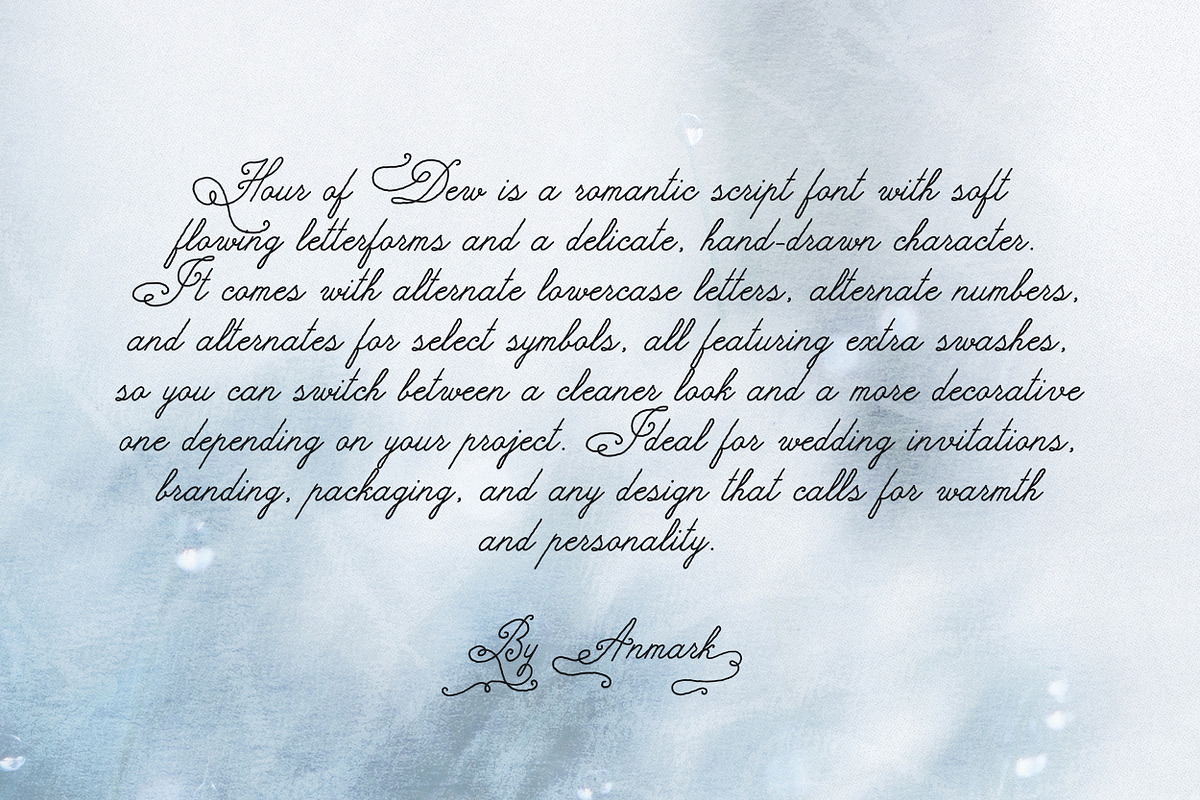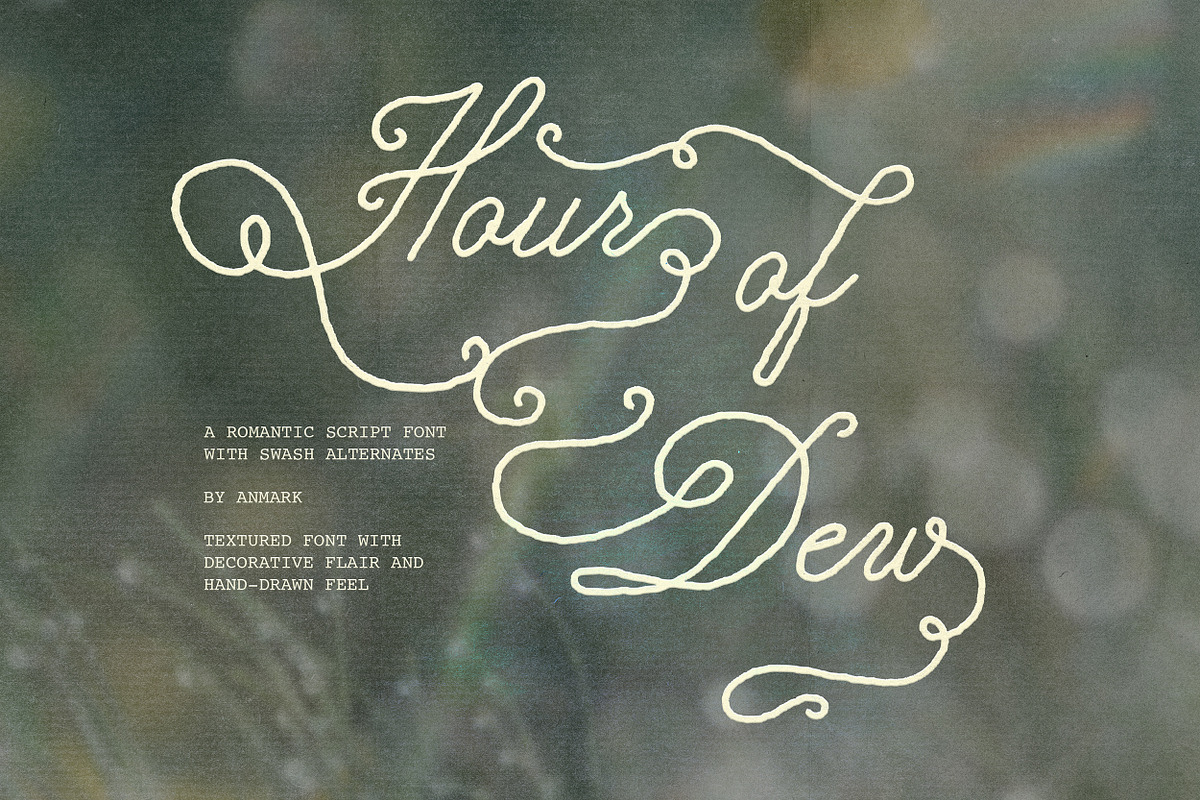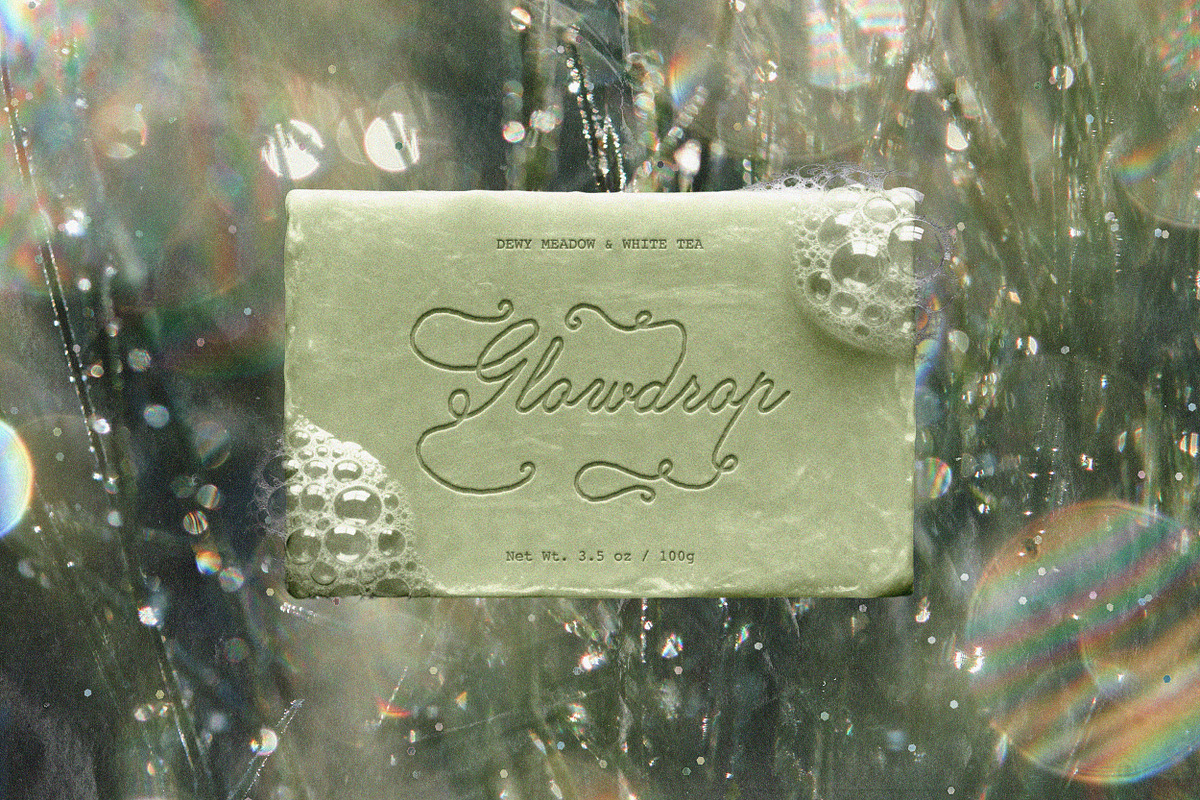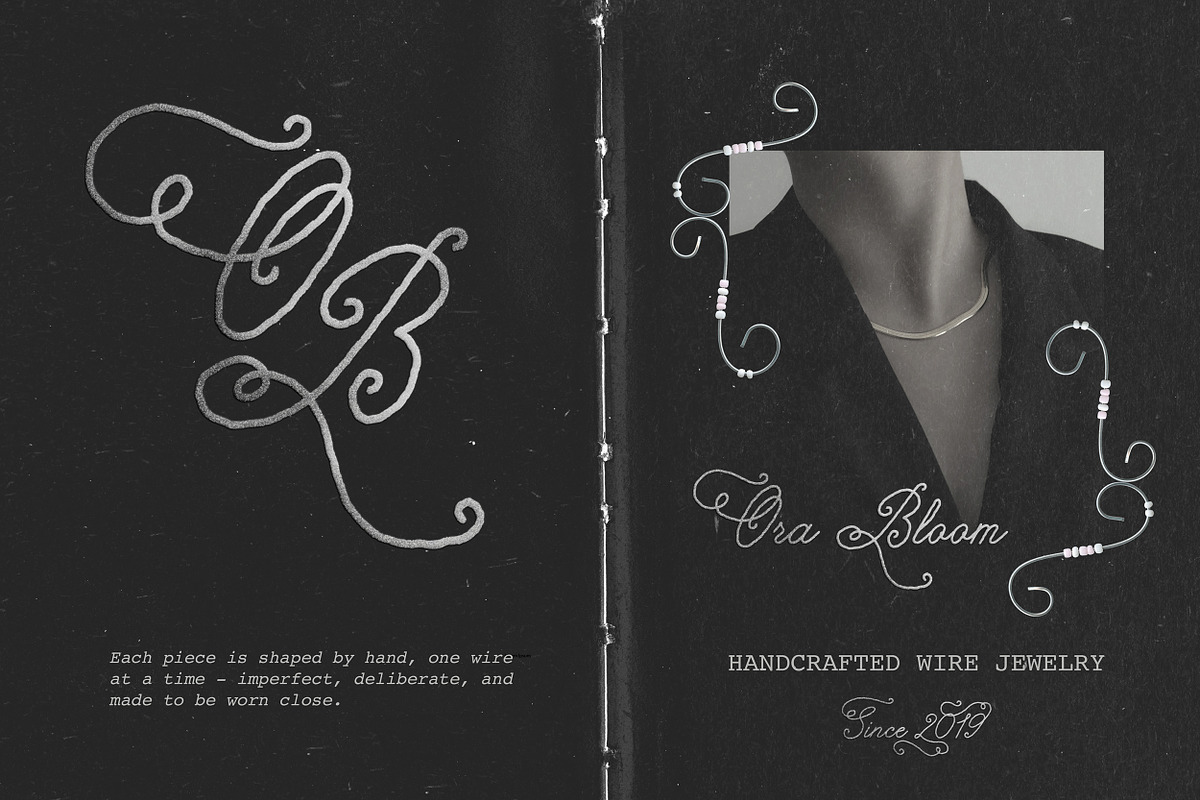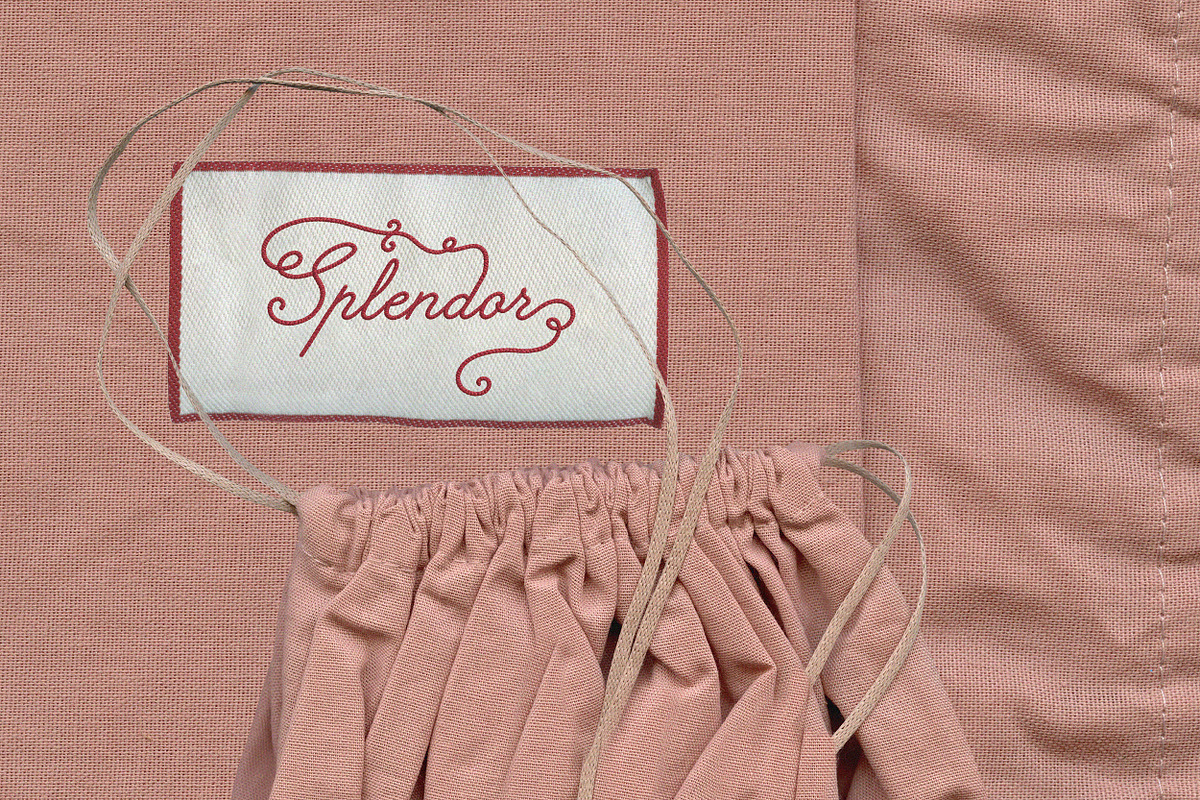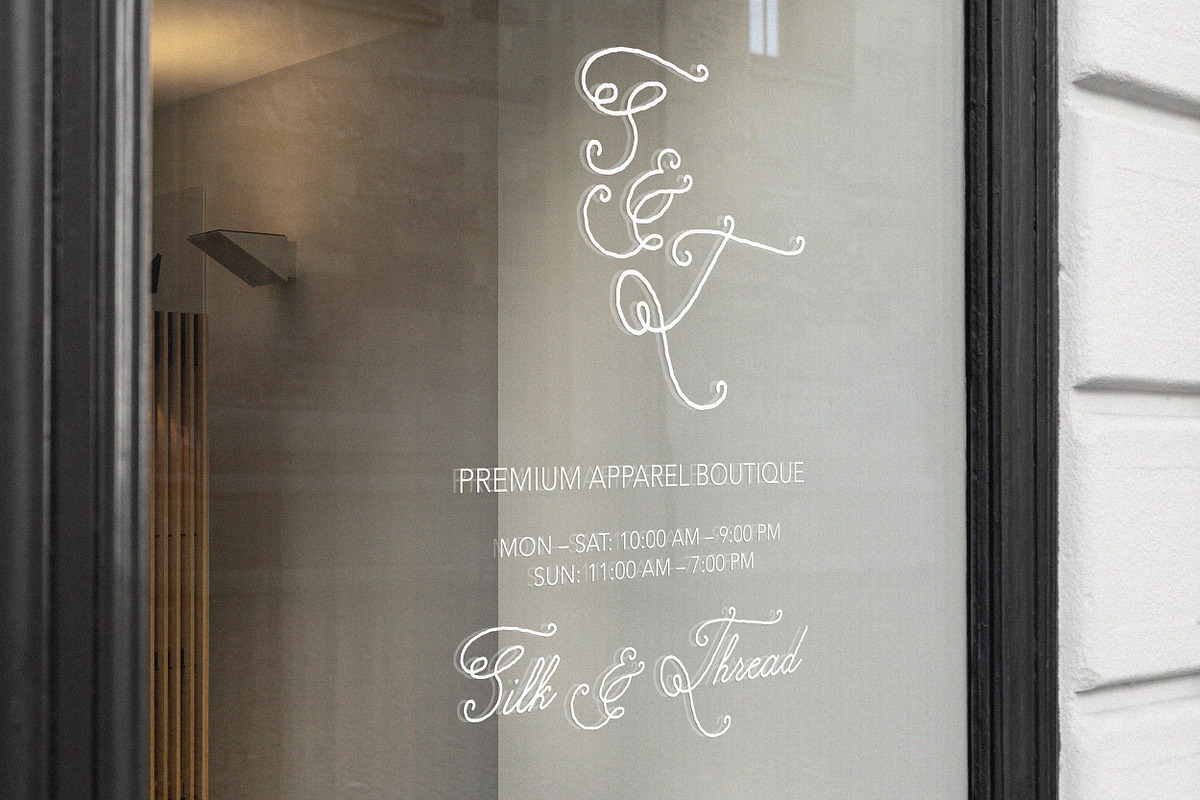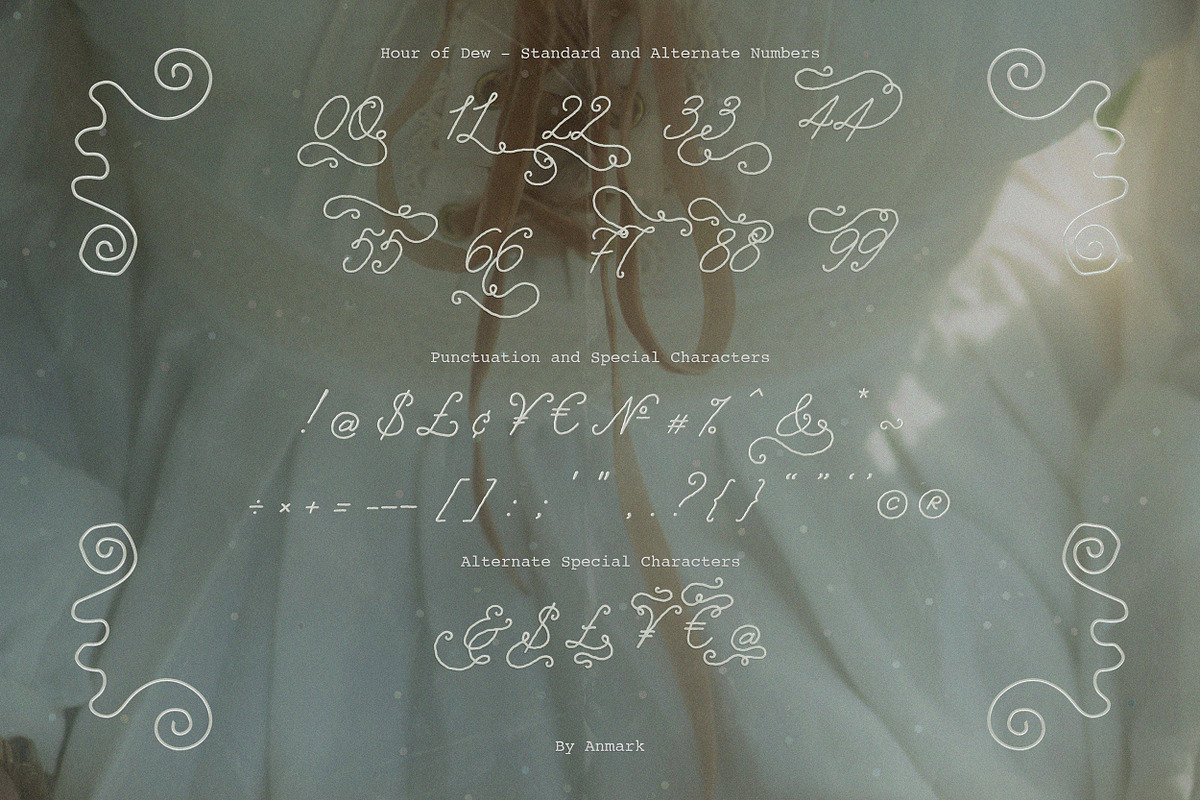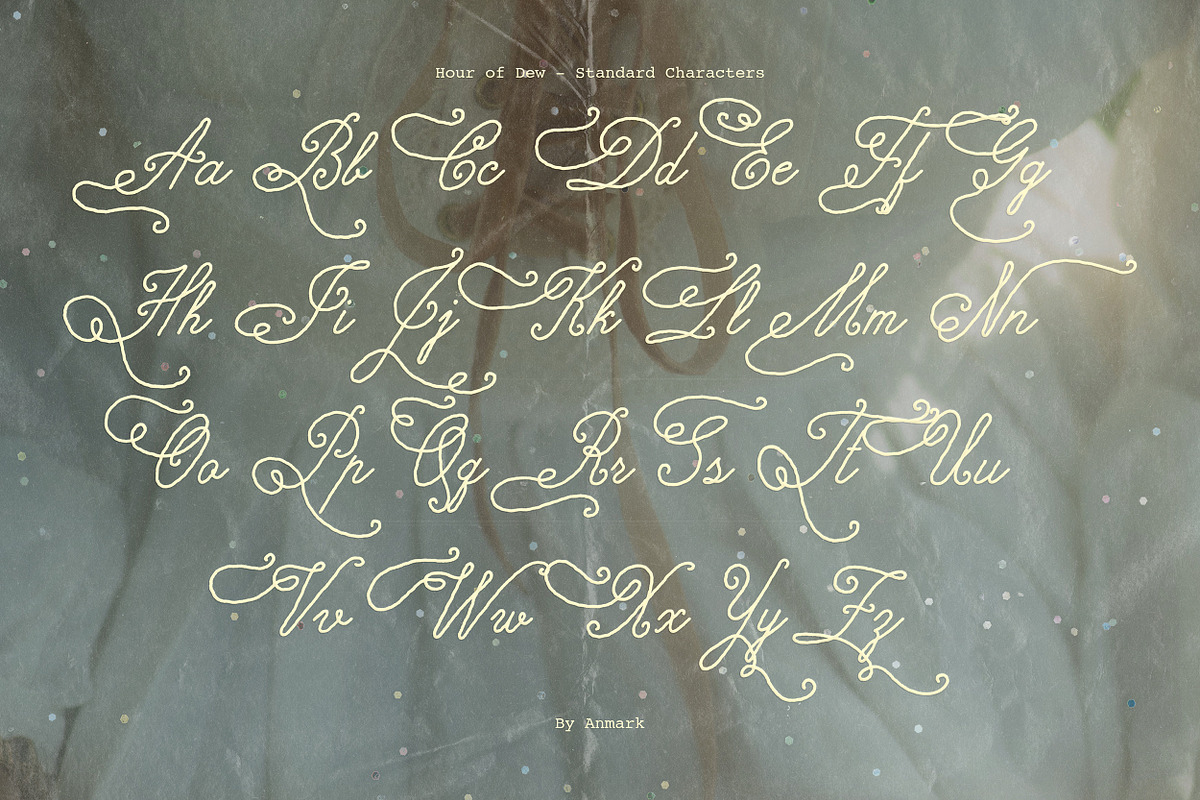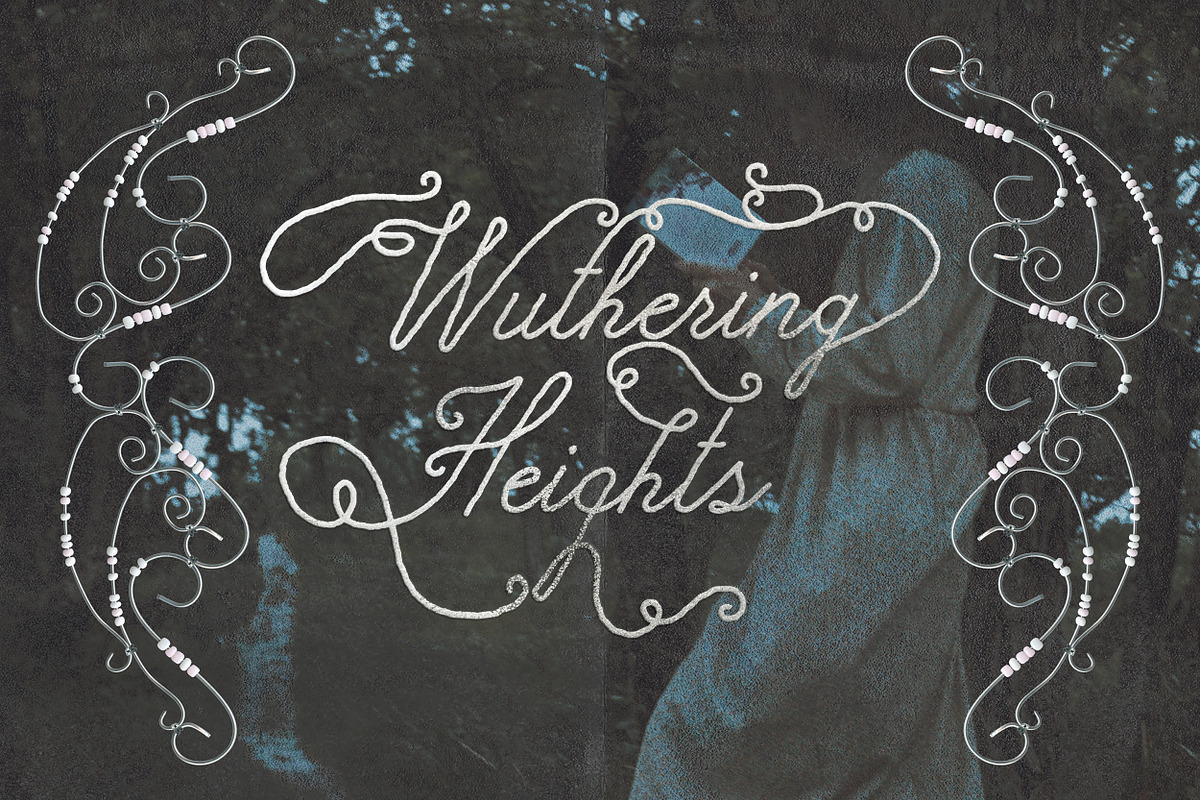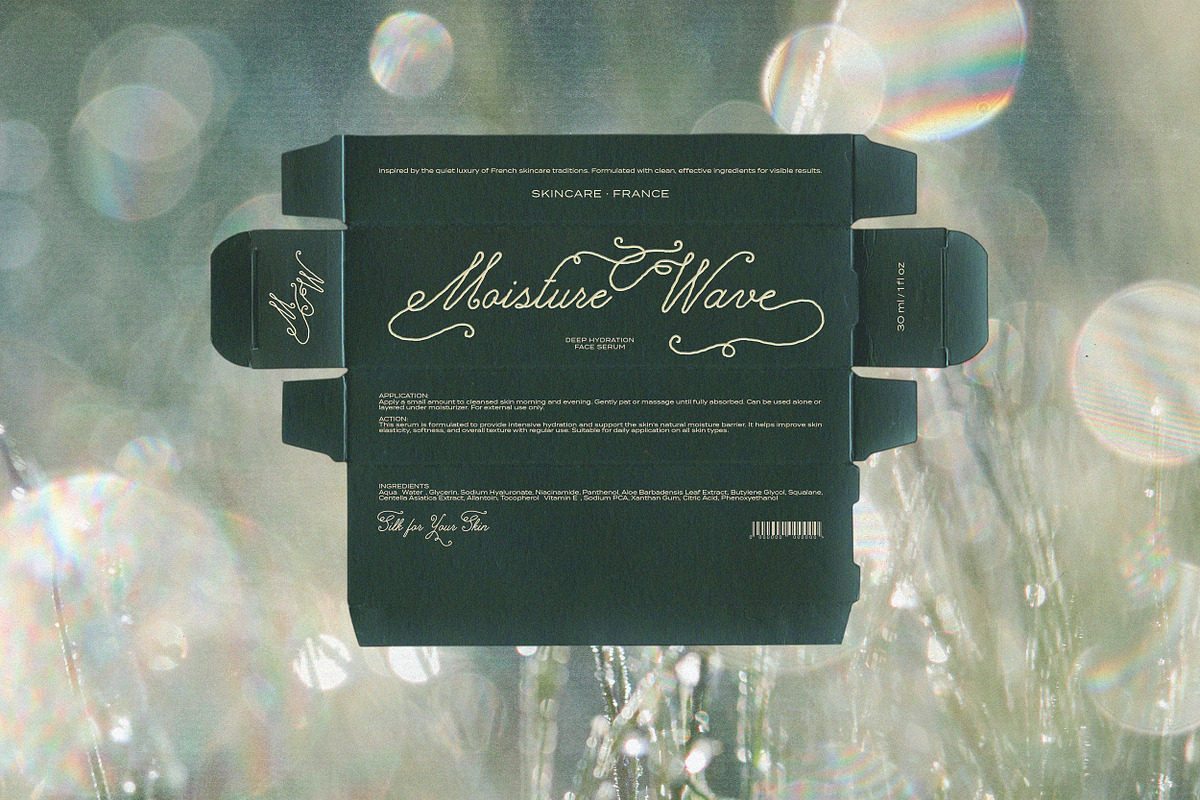
Hour of Dew | Romantic Swash Script
Hour of Dew is a romantic script font with soft, flowing letterforms and a delicate, hand-drawn character. The texture in every stroke gives it a warm, storybook feel, like it was written slowly rather than typed.
The font includes alternate lowercase letters, alternate numbers, and alternates for select symbols, each featuring extra swashes for a more decorative look. Switch between the standard and alternate glyphs depending on how romantic or restrained you want your text to feel.
Hour of Dew works beautifully for wedding invitations and stationery, logo and branding design, packaging and product labels, social media graphics, greeting cards, and editorial headlines. It's a versatile choice for any project that calls for warmth and character.